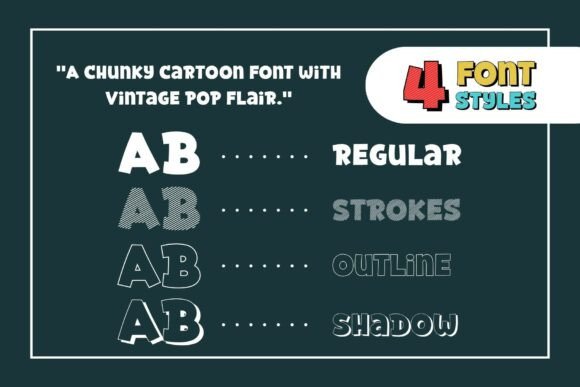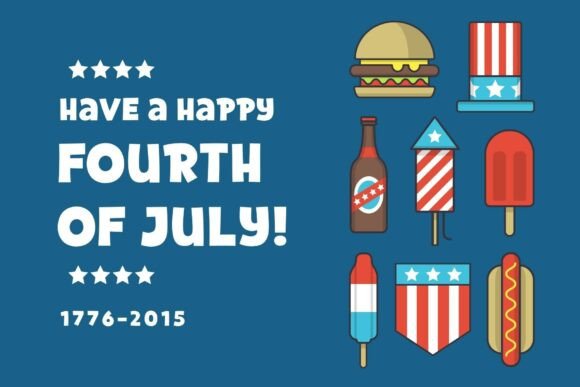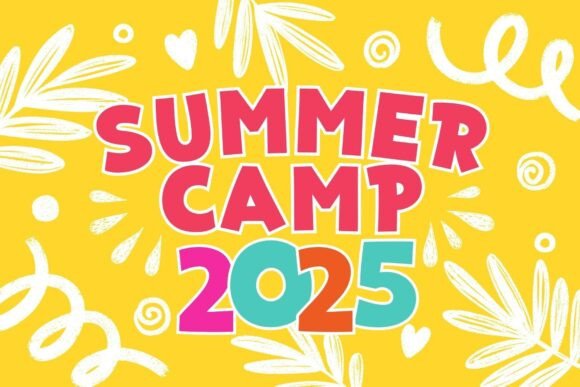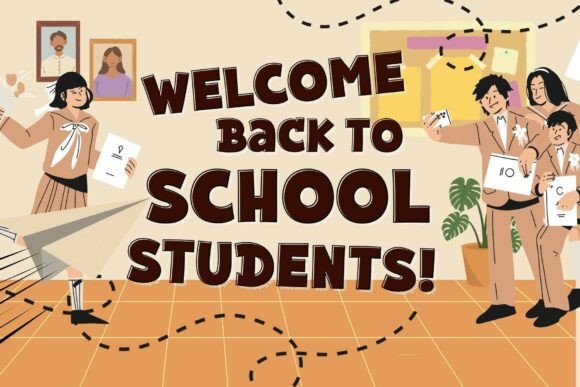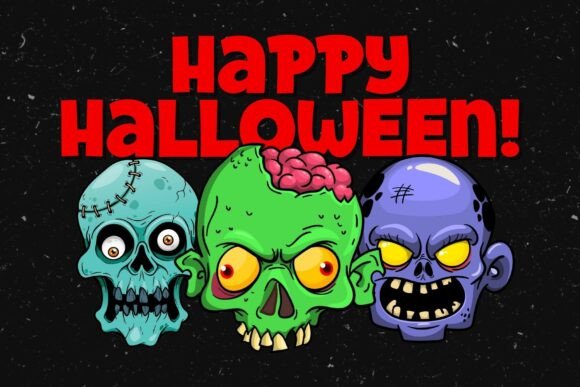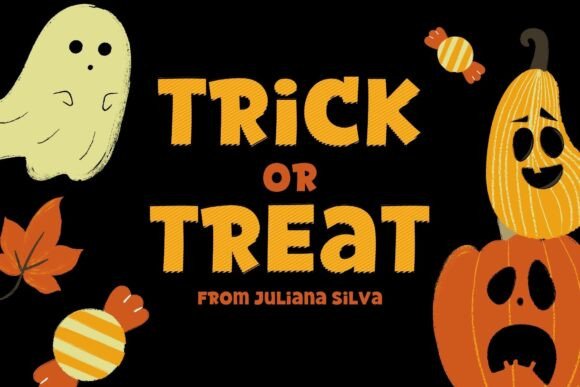
Introducing Fox Dinky Font: The Ultimate Playful Typeface for Designers and Crafters
Are you tired of using the same old boring fonts in your designs? Look no further than Fox Dinky Font, a fun and chunky cartoon font family that’s sure to add a bold, joyful touch to any project. With its 4 playful styles – Regular, Strokes, Outline, and Shadow – Fox Dinky is the perfect choice for designers, crafters, and content creators who want to add a touch of whimsy to their work.
Inspired by Vintage Comics and Retro Pop Art
Fox Dinky Font is inspired by the classic cartoons and comics of the past, with a modern twist. Its chunky, playful design is reminiscent of vintage comics and retro pop art, making it perfect for projects that require a fun and nostalgic feel. Whether you’re creating a kids’ product, a comic-style poster, or a playful brand identity, Fox Dinky Font is sure to bring a smile to your audience’s face.
4 Playful Styles to Suit Any Project
One of the best things about Fox Dinky Font is its versatility. With 4 different styles to choose from – Regular, Strokes, Outline, and Shadow – you can use it for a wide range of projects. The Regular style is perfect for bold, eye-catching headlines, while the Strokes style adds a fun, hand-drawn feel to your text. The Outline style is great for creating striking, graphic designs, and the Shadow style adds a touch of depth and dimension to your text.
Perfect for Kids’ Products and Playful Branding
Fox Dinky Font is a natural fit for kids’ products and playful branding. Its fun, cartoonish design is sure to appeal to kids and parents alike, making it perfect for products like toys, games, and children’s books. It’s also a great choice for brands that want to convey a playful, youthful vibe, such as children’s clothing, accessories, and entertainment companies.
Great for Comic-Style Posters, Packaging, and Book Covers
Fox Dinky Font is also a great choice for comic-style posters, packaging, and book covers. Its bold, chunky design is perfect for creating eye-catching headlines and titles, and its playful feel is sure to grab attention. Whether you’re creating a poster for a comic book convention, packaging for a new product, or a book cover for a graphic novel, Fox Dinky Font is a great choice.
DIY Crafts and Content Creators
Fox Dinky Font is not just for designers and brands – it’s also a great choice for DIY crafters and content creators. Whether you’re creating handmade cards, scrapbooking pages, or social media graphics, Fox Dinky Font is a fun and easy way to add a playful touch to your projects. Its bold, chunky design is perfect for creating eye-catching headlines and titles, and its playful feel is sure to add a touch of personality to your work.
Why Choose Fox Dinky Font?
So why choose Fox Dinky Font for your next project? Here are just a few reasons:
- Unique and playful design: Fox Dinky Font has a one-of-a-kind design that’s sure to stand out from the crowd.
- Versatile: With 4 different styles to choose from, Fox Dinky Font can be used for a wide range of projects.
- Fun and engaging: Fox Dinky Font is sure to add a touch of fun and personality to any project.
In conclusion, Fox Dinky Font is a fun and chunky cartoon font family that’s perfect for designers, crafters, and content creators who want to add a bold, joyful touch to their projects. With its 4 playful styles, inspired by vintage comics and retro pop art, Fox Dinky Font is a versatile and engaging choice for kids’ products, playful branding, comic-style posters, packaging, book covers, and DIY crafts. So why not give Fox Dinky Font a try today and see the difference it can make in your designs?